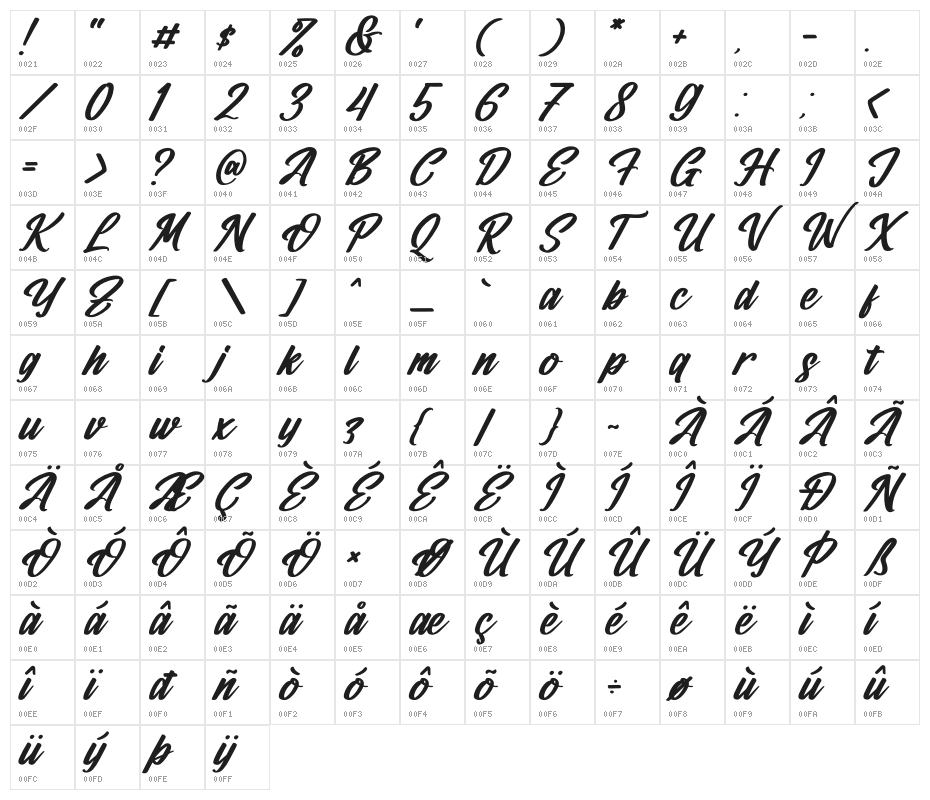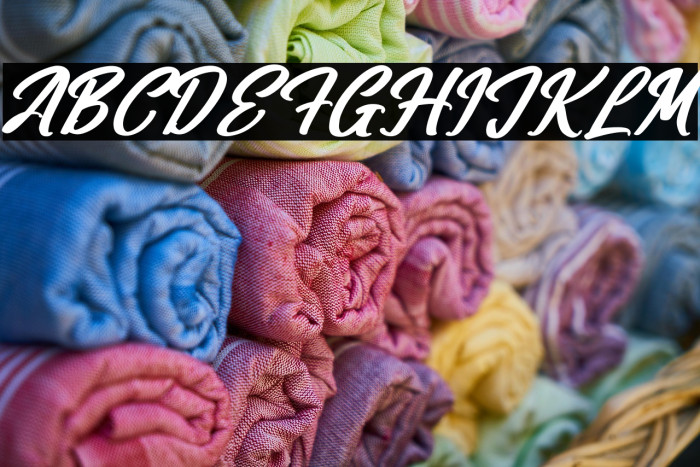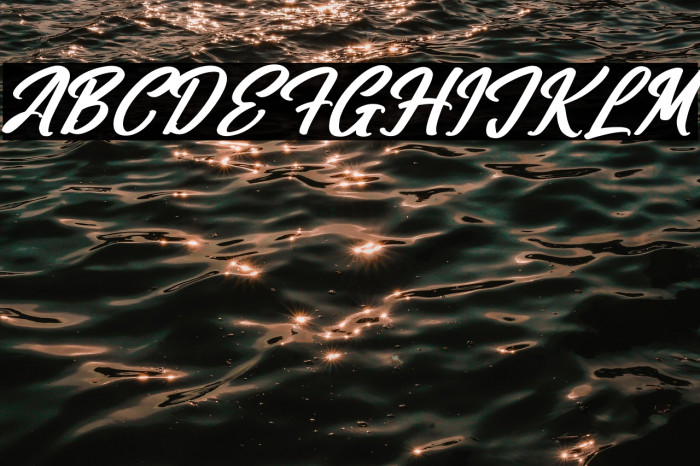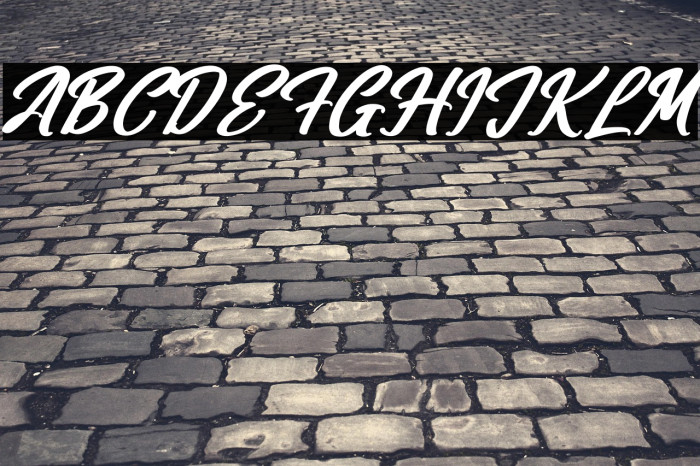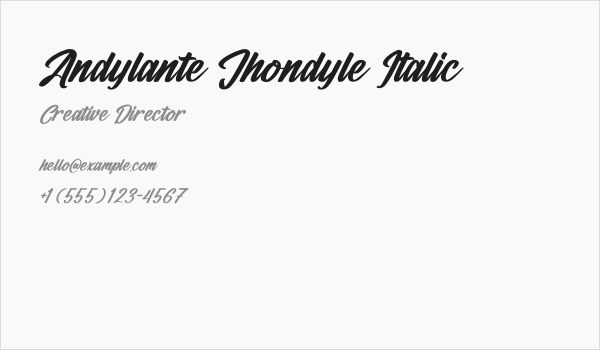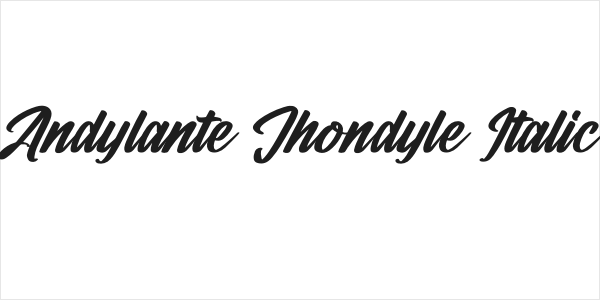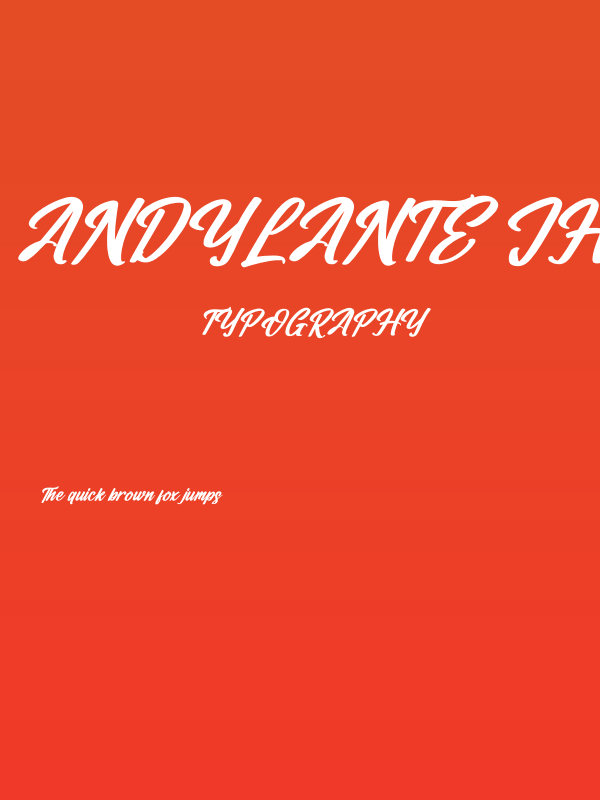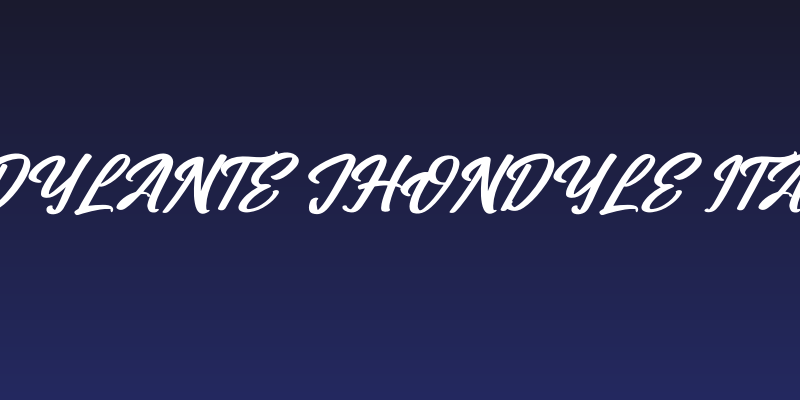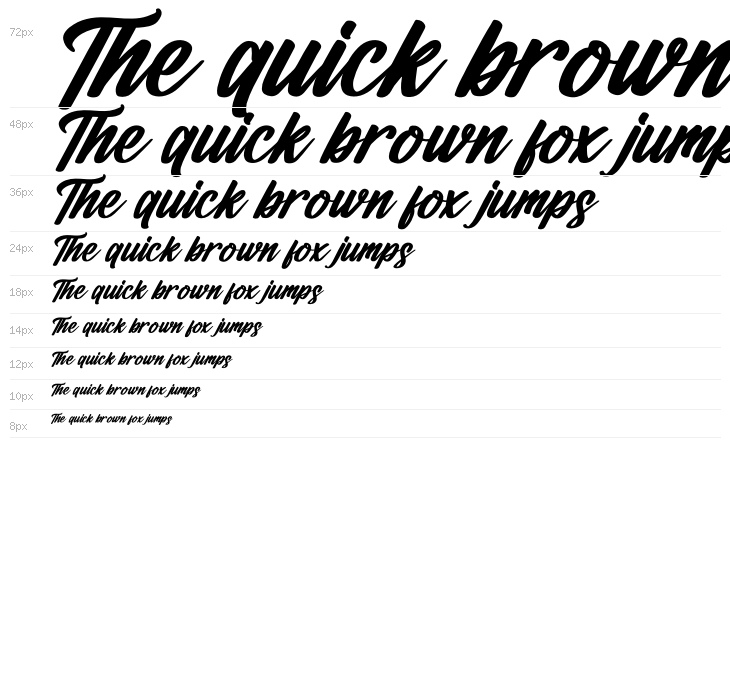
Andylante Jhondyle Italic Font
Andylante Jhondyle Italic Description
This font exhibits a dynamic and flowing script style, characterized by its elegant and cursive letterforms. The uppercase letters are bold and sweeping, with a consistent slant that adds a sense of motion and fluidity. The lowercase letters maintain this fluidity, with smooth connections between characters that enhance readability. The numerals are equally stylish, maintaining the script's overall aesthetic. Special characters are designed to complement the alphabet, ensuring a cohesive look across all text. The font's bold weight and italic style make it ideal for creating impactful and expressive designs.